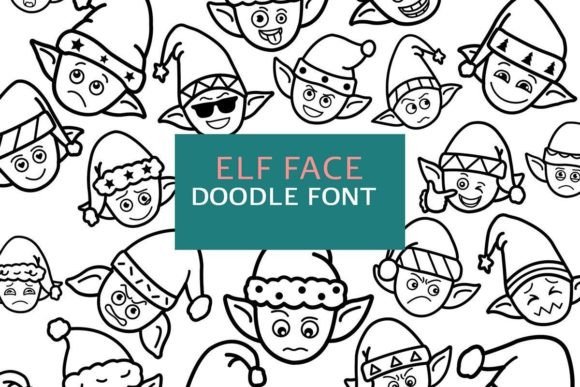
Introducing Elf Face Doodle Font: The Ultimate Dingbat Font for Creative Projects
Are you a designer, crafter, or DIY enthusiast looking for a fun and versatile font to add a touch of whimsy to your projects? Look no further than the Elf Face Doodle Font! This adorable dingbat font is perfect for a wide range of creative endeavors, from craft projects and designs to planners, diaries, activity books, and more.
What is Elf Face Doodle Font?
Elf Face Doodle Font is a unique and playful dingbat font that features cute and quirky elf faces. The font is designed to be highly versatile, making it suitable for various applications, from digital designs to print materials. With its fun and carefree vibe, this font is sure to bring a smile to your face and inspire your creativity.
Key Features of Elf Face Doodle Font
- Fun and Cute Design: The Elf Face Doodle Font boasts an irresistibly adorable design that is sure to capture the hearts of designers and crafters alike.
- Versatility: This font can be used for a wide range of projects, including craft projects, designs, planners, diaries, activity books, and more.
- Dingbat Font: As a dingbat font, Elf Face Doodle Font features graphical symbols instead of traditional letters, making it perfect for adding visual interest to your designs.
Uses for Elf Face Doodle Font
The possibilities are endless when it comes to using Elf Face Doodle Font! Here are some ideas to get you started:
- Craft Projects: Add a touch of whimsy to your craft projects, such as scrapbooking, card making, and DIY gifts.
- Designs: Use the font to create eye-catching designs for social media, blogs, and websites.
- Planners and Diaries: Add a fun and playful touch to your planners and diaries with Elf Face Doodle Font.
- Activity Books: Create engaging activity books for kids, featuring the adorable elf faces.
- Stationery and Gift Tags: Use the font to create custom stationery and gift tags that are sure to delight.
Tips for Using Elf Face Doodle Font
Here are some tips for getting the most out of Elf Face Doodle Font:
- Experiment with Sizes and Colors: Play around with different sizes and colors to add visual interest to your designs.
- Combine with Other Fonts: Pair Elf Face Doodle Font with other fonts to create unique and interesting typography.
- Use for Headers and Titles: Use the font to create eye-catching headers and titles that grab attention.
- Add to Your Design Toolkit: Make Elf Face Doodle Font a part of your design toolkit, and use it to add a touch of whimsy to your designs.